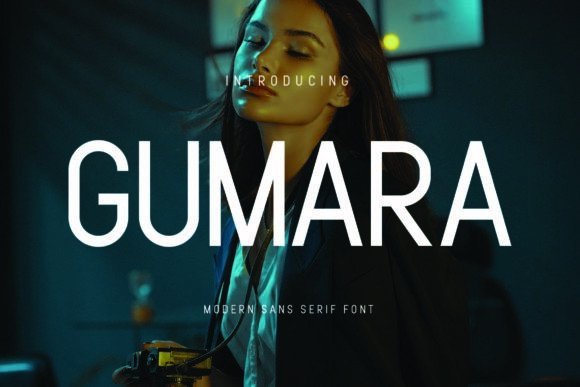
The Perfect Font for Your Creative Vision
Have you ever stared at a blank canvas, feeling like a spark is missing to bring your design to life? That’s where the Gumara Font comes in – a classic sans serif font that’s been a game-changer for designers. Inspired by the minimalist logo, this font is perfect for creating templates, brochures, videos, and advertising branding that exudes elegance and sophistication.
Whether you’re crafting a logo, designing an invitation, or working on a beauty project, the Gumara Font is an invaluable asset. Its clean lines, modern aesthetic, and versatility make it a go-to choice for designers. With the Gumara Font, you can take your designs to the next level, elevating your brand’s visual identity and making a lasting impression on your audience.
Gumara Font Key Features
- Font Family: Gumara Font is a sans-serif font family with multiple weights and styles, designed for use in digital and print media.
- Character Set: Supports a wide range of languages, including Latin, Cyrillic, and Greek alphabets, making it suitable for multilingual projects.
- Unique Characteristics: Gumara Font features a clean and modern design, with subtle rounded edges and a distinctive x-height, making it ideal for corporate branding and digital interfaces.
Gumara Font Review
Overall, I think the Gumara font is a solid choice for designers, but it has its strengths and weaknesses.
- Unique aesthetic: Gumara has a distinctive style that can add a touch of elegance to any project.
- High-quality typography: The font is well-designed and legible, making it perfect for body text or headlines.
- Good for modern designs: Gumara’s minimalist design makes it suitable for contemporary projects, especially those with a tech or corporate feel.
- May not be ideal for creative or playful projects: Gumara’s clean and simple design may not be the best fit for projects that require a more whimsical or expressive tone.
- Not suitable for small font sizes: While Gumara is legible, it may not be the best choice for text that needs to be read at small font sizes, as the details may get lost.
- Limited language support: Gumara may not support as many languages as other fonts, which could be a limitation for global projects.
Gumara is a great font for designers who need a clean, modern aesthetic. While it may not be the best choice for every project, it’s a solid addition to any font library. With its unique style and high-quality typography, Gumara is definitely worth considering for your next design project.
Tips: Use Gumara for headings and titles to create a bold and modern look. Experiment with different font sizes and colors to achieve a unique design aesthetic.
Tips: Use Gumara for typography-based designs, such as posters or flyers. Experiment with layer blending modes and opacity to create a visually appealing design.
Tips: Use Gumara for headings and titles to create a clean and professional look. Experiment with font sizes and colors to create a visually appealing design.
The Gumara font is ideal for modern and minimalist designs, such as:
– Branding materials
– Digital signage
– Brochures and flyers
Alternatives to Gumara Font for Designers
Montserrat is a modern sans-serif font that is highly legible and versatile. It is perfect for use in digital and print materials, such as websites, apps, and brochures. Montserrat is a great alternative to Gumara Font for designers who want a clean and minimalist look. Compared to Gumara Font, Montserrat is more geometric and has a slightly larger x-height, making it more suitable for body text.
Lato is a sans-serif font that is highly customizable and has a unique, friendly feel. It is perfect for use in digital and print materials, such as websites, apps, and branding materials. Lato is a great alternative to Gumara Font for designers who want a font that is both modern and approachable. Compared to Gumara Font, Lato is more rounded and has a slightly smaller x-height, making it more suitable for headings and titles.
Q: Can I customize the Gumara Font for my specific design project?
Yes, the Gumara Font is designed to be highly customizable. Its OpenType features, such as ligatures and swashes, can be easily accessed and applied using font editors or design software. Additionally, the font’s design allows for easy modification and customization to suit specific design requirements.